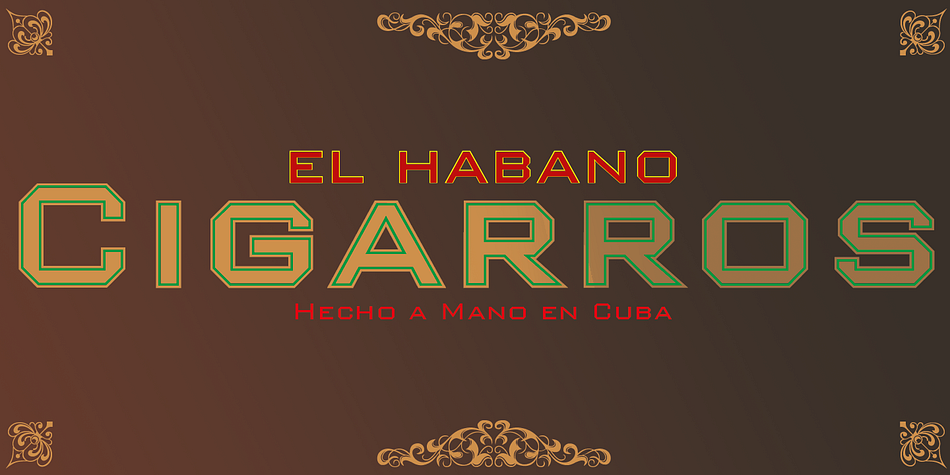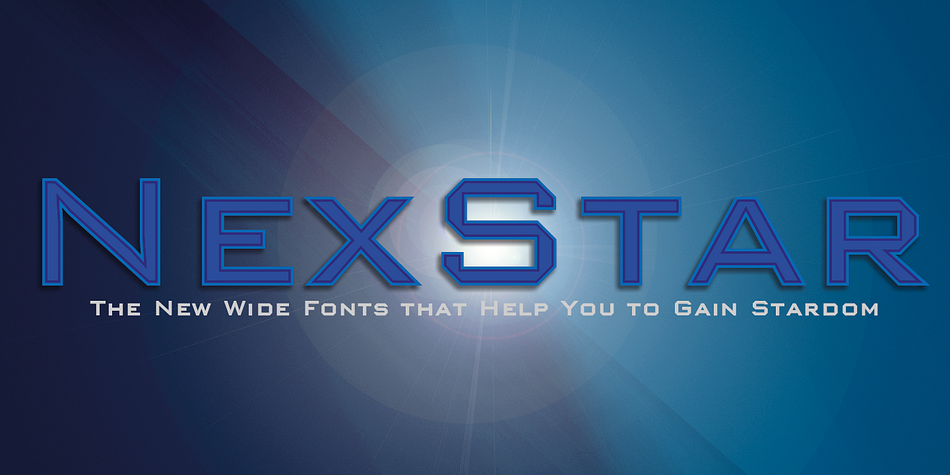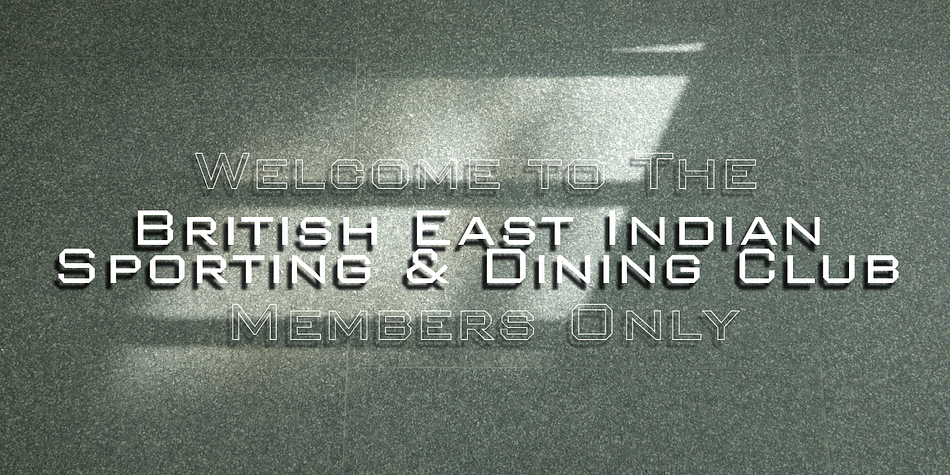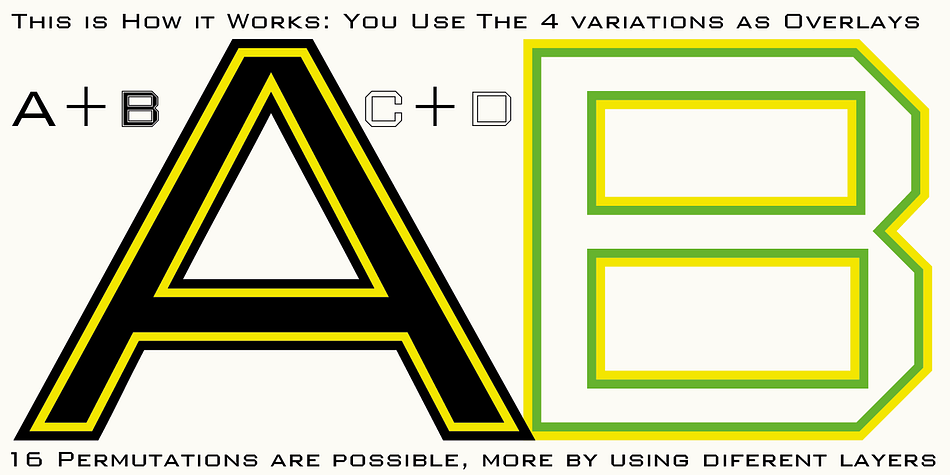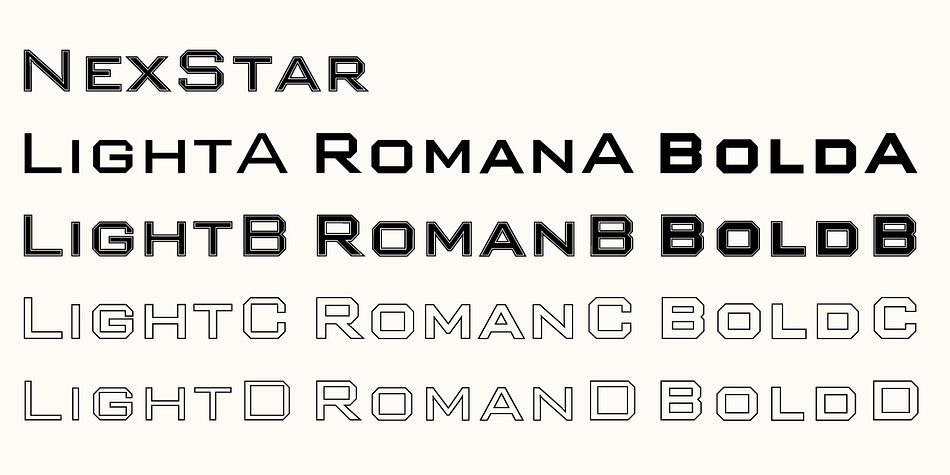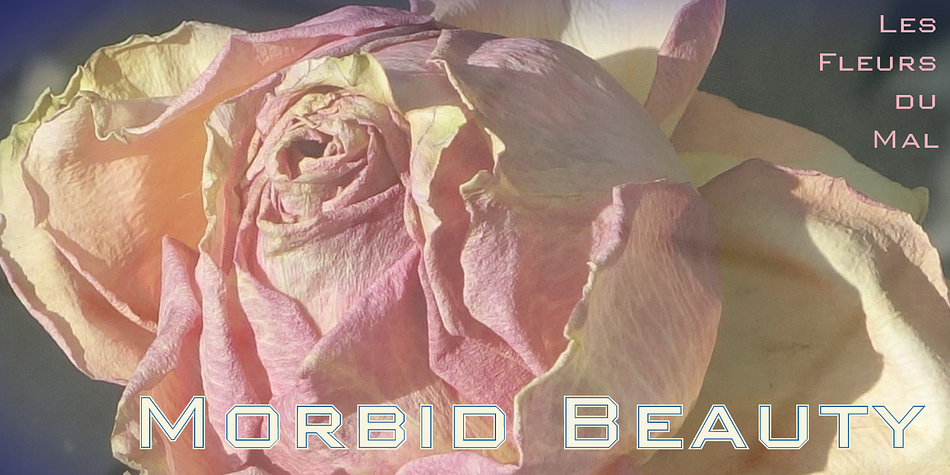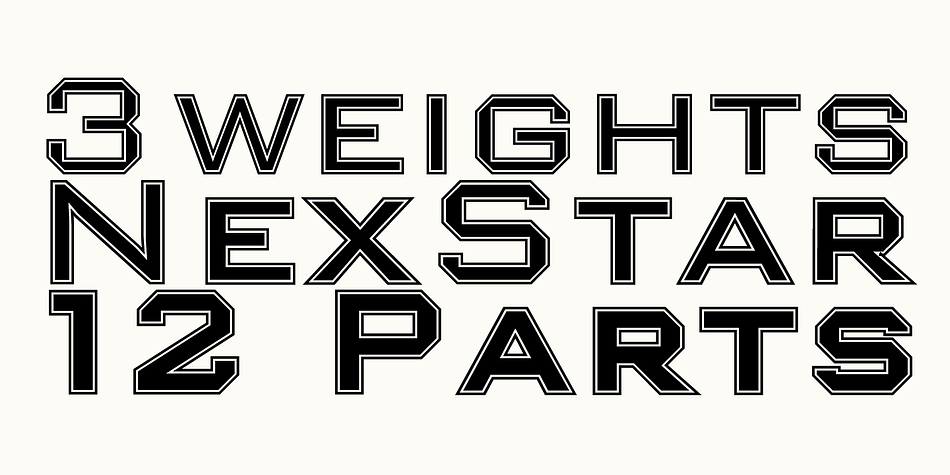
Nexstar is a display sans font family. This typeface has twelve styles and was published by Wiescher-Design.
A display font in the best American tradition, made for sports, leisure, outdoors and any other occasion of elegant leisure.